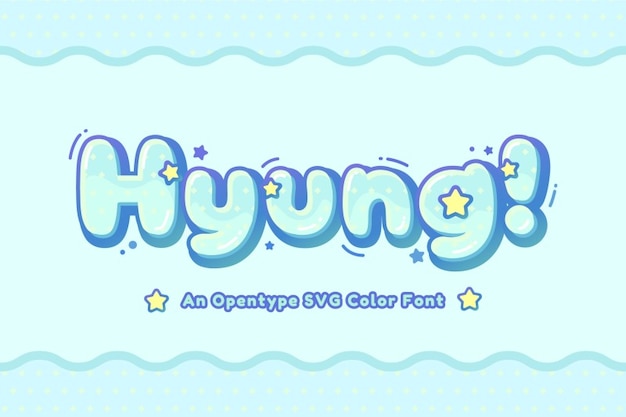
Hyung is a vibrant font inspired by Korean culture, embodying the energetic spirit of K-pop with its rounded, playful design. The 3D effects add depth and dimension, making it perfect for music posters, merchandise, or any project aiming to capture a youthful, modern aesthetic. With its bold curves and contemporary flair, Hyung brings a dynamic touch that resonates with fans of Korea's pop culture scene.